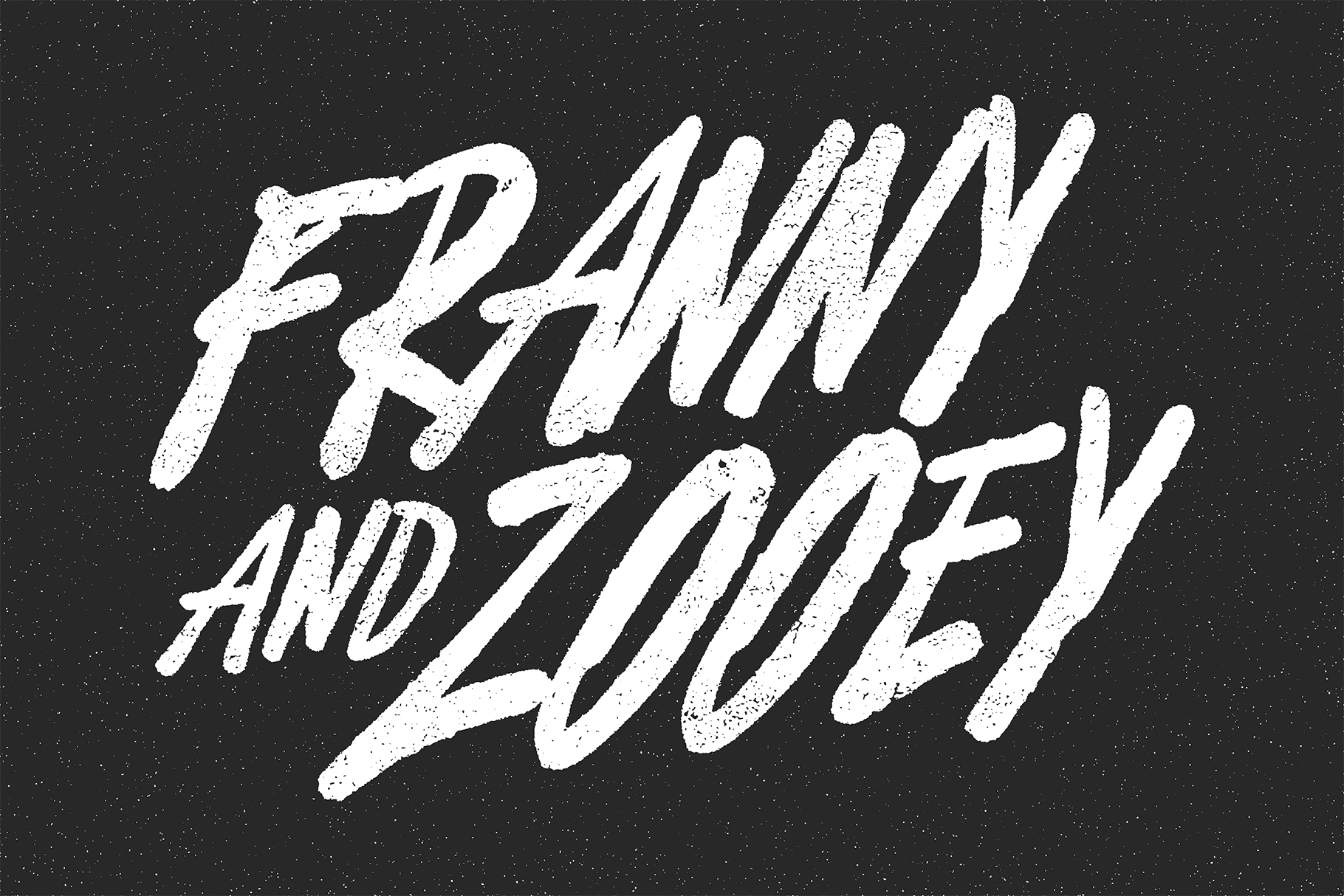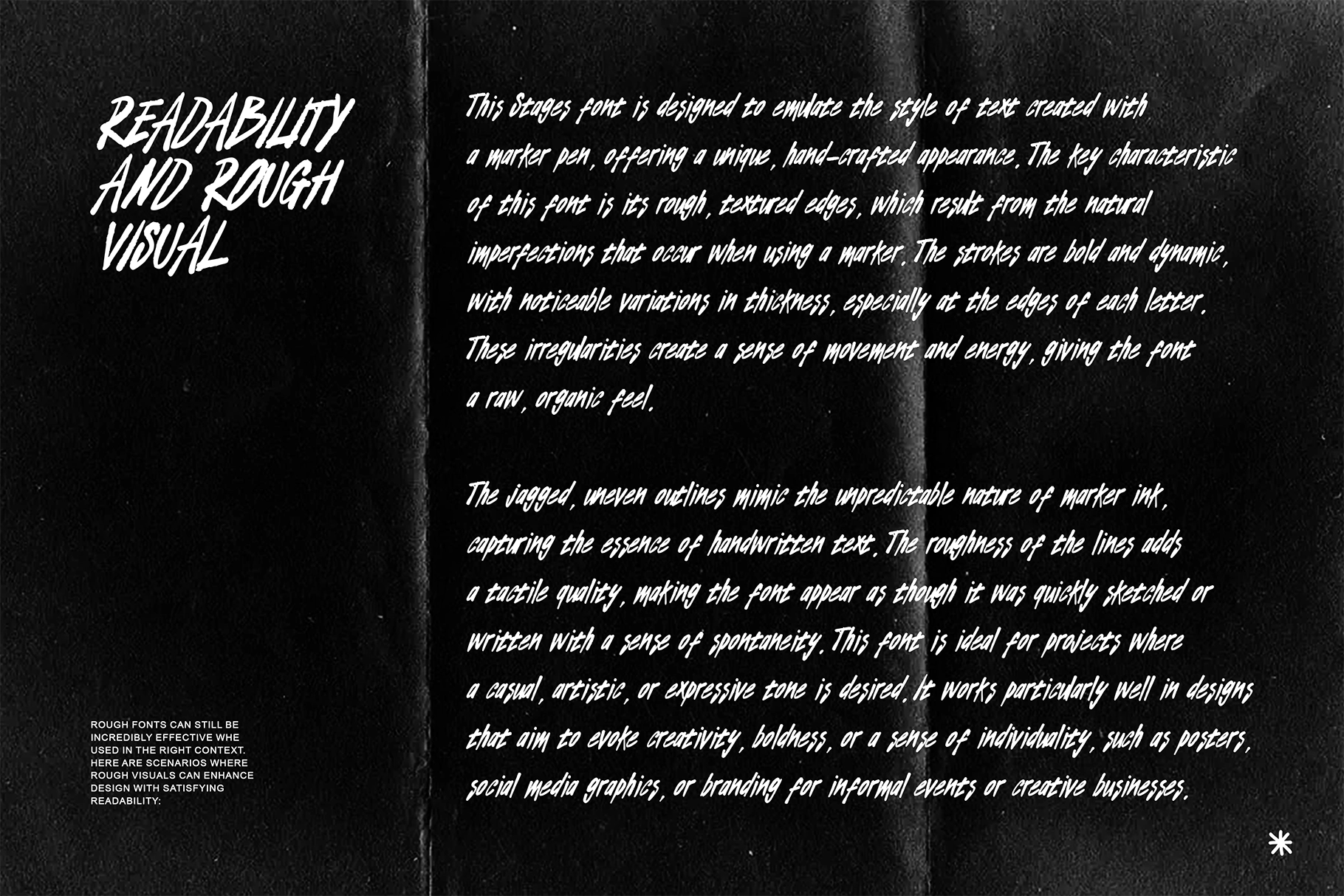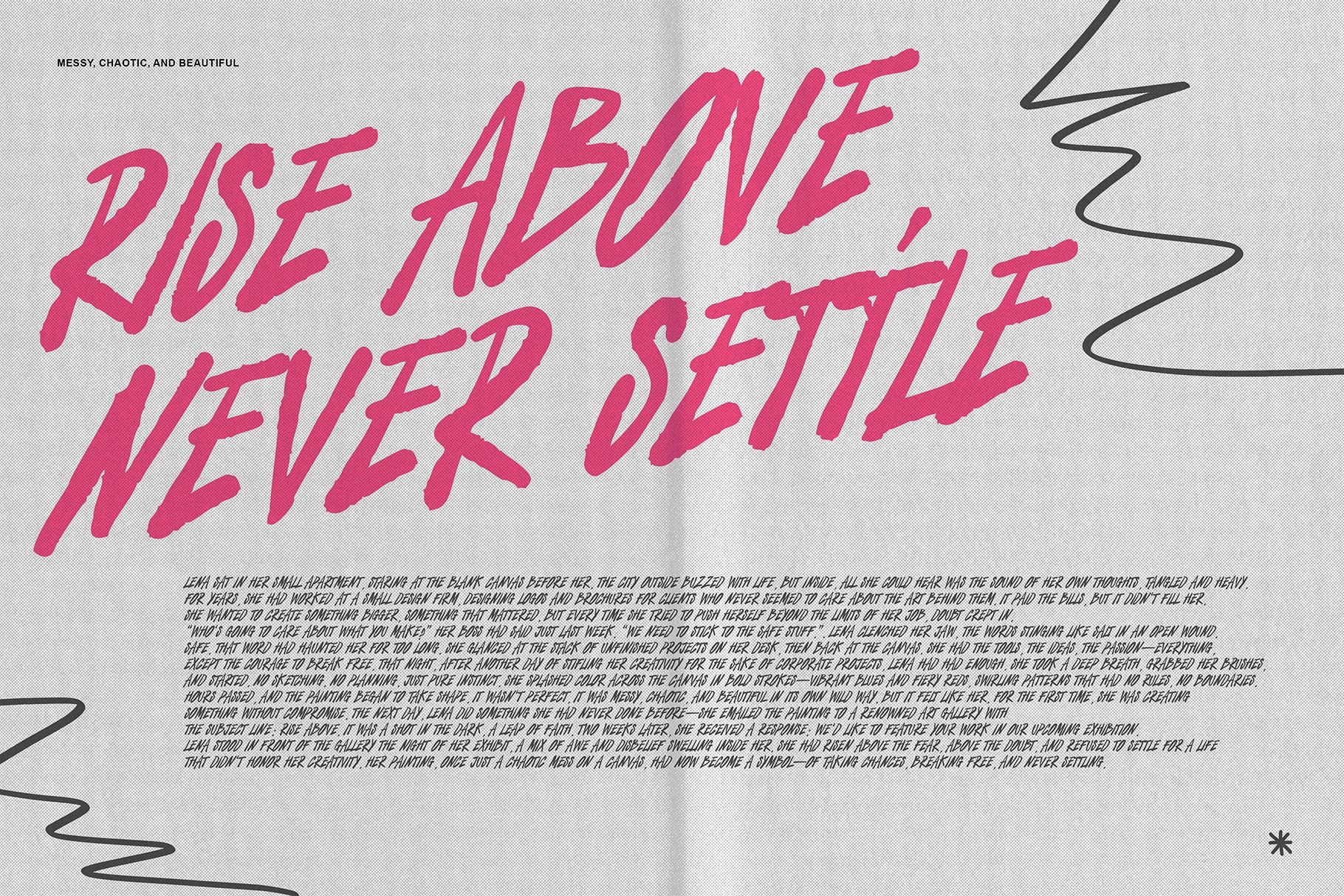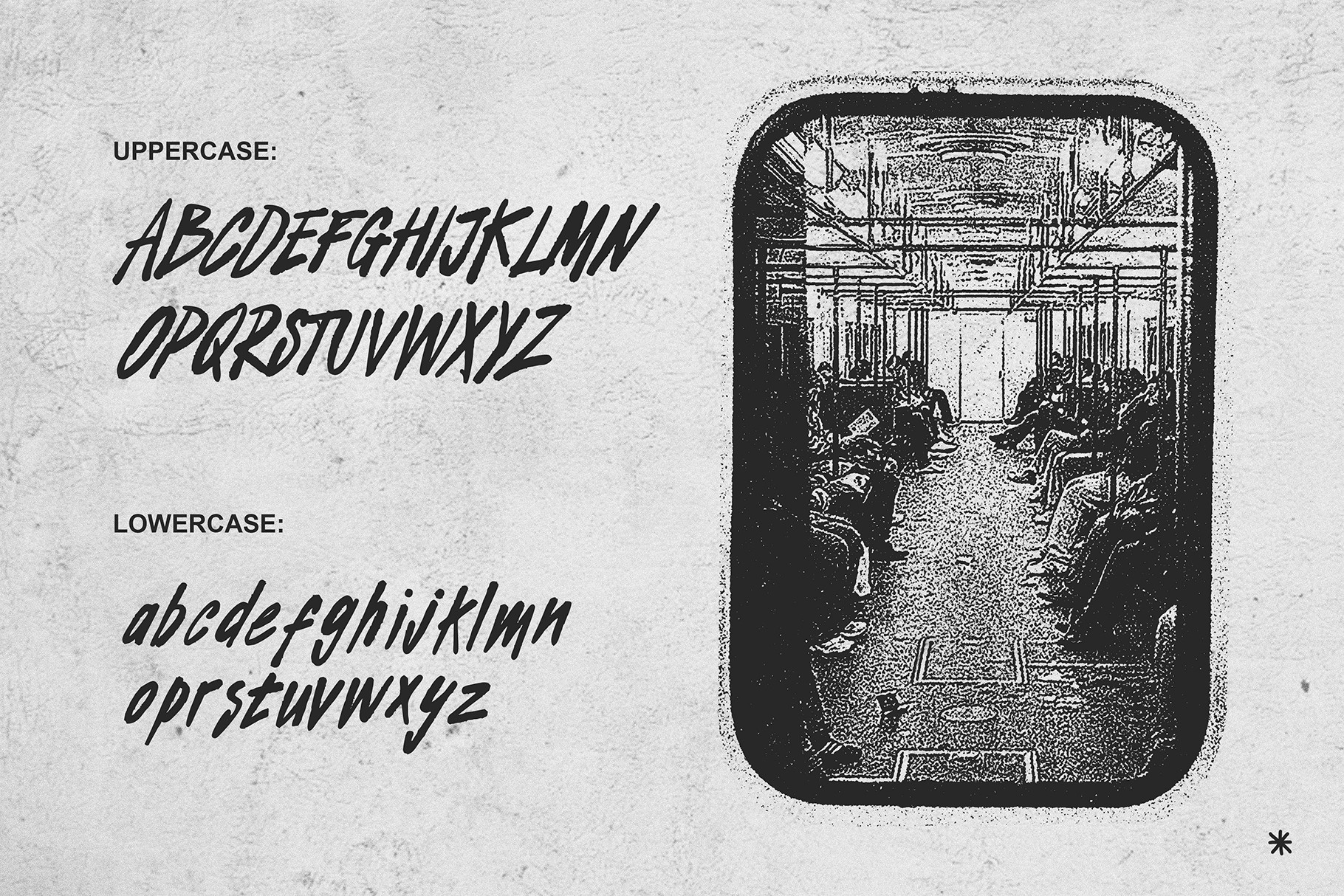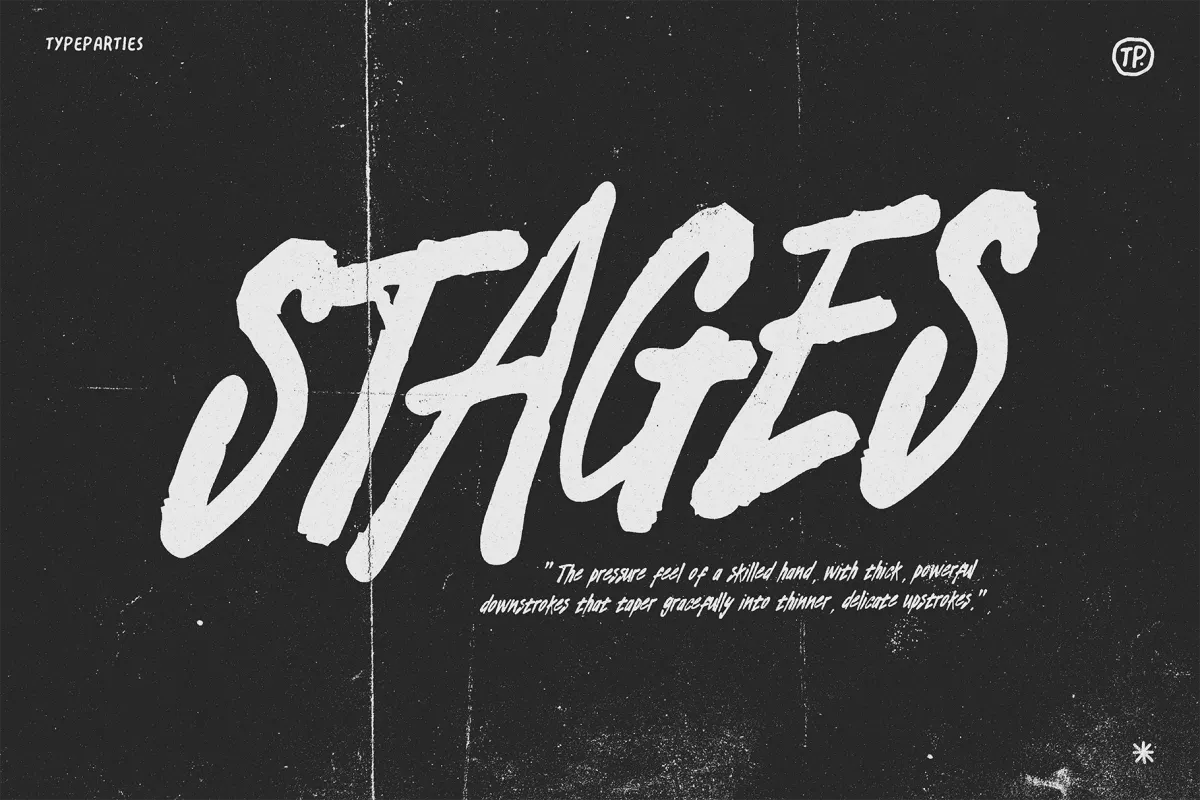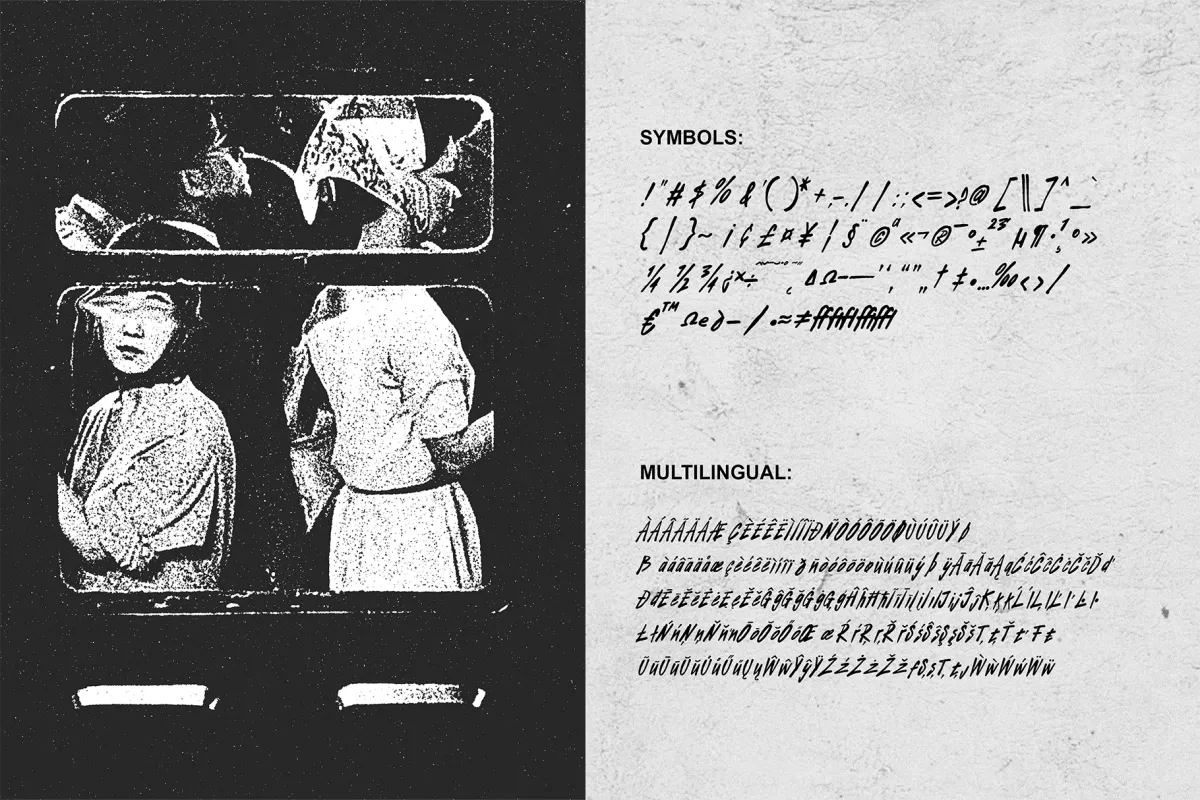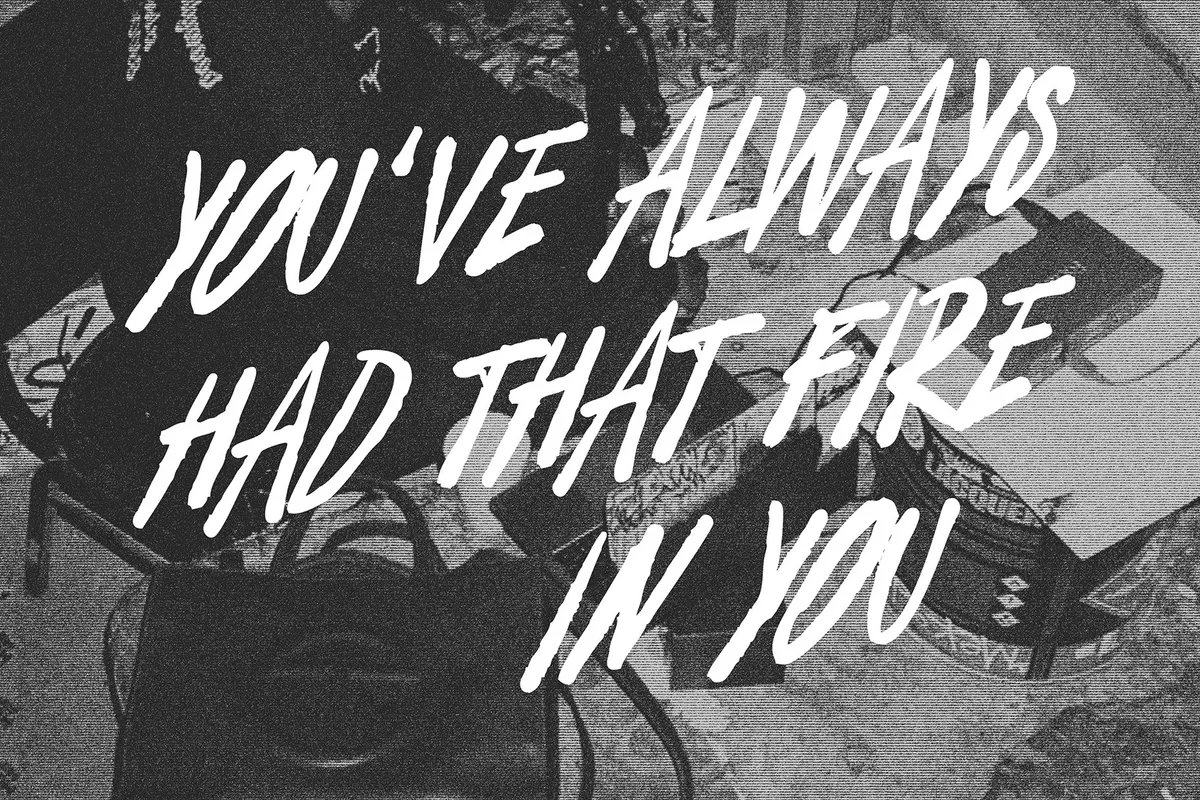
Stages - Hadnwritten Marker Fonts
Stages - Hadnwritten Marker Fonts is a bold font that explodes with raw, untamed energy. Designed to capture the pressure and movement of a real marker stroke, this typeface feels immediate, expressive, and unapologetically alive.
Each letter is built with heavy downstrokes that crash with impact, contrasted by sharp, razor-thin upstrokes that add speed and tension. The rough, textured edges mimic natural ink imperfections, giving the font a gritty, organic character — like words painted fast on a wall before the moment disappears.
Stages isn’t subtle. It’s loud, emotional, and made for designs that demand attention. Perfect for posters, music artwork, streetwear branding, social media graphics, album covers, and bold editorial headlines.
- Handwritten brush display font
- Raw, textured marker style
- Dynamic thick-to-thin stroke contrast
- Natural rough edges
- Uppercase & lowercase